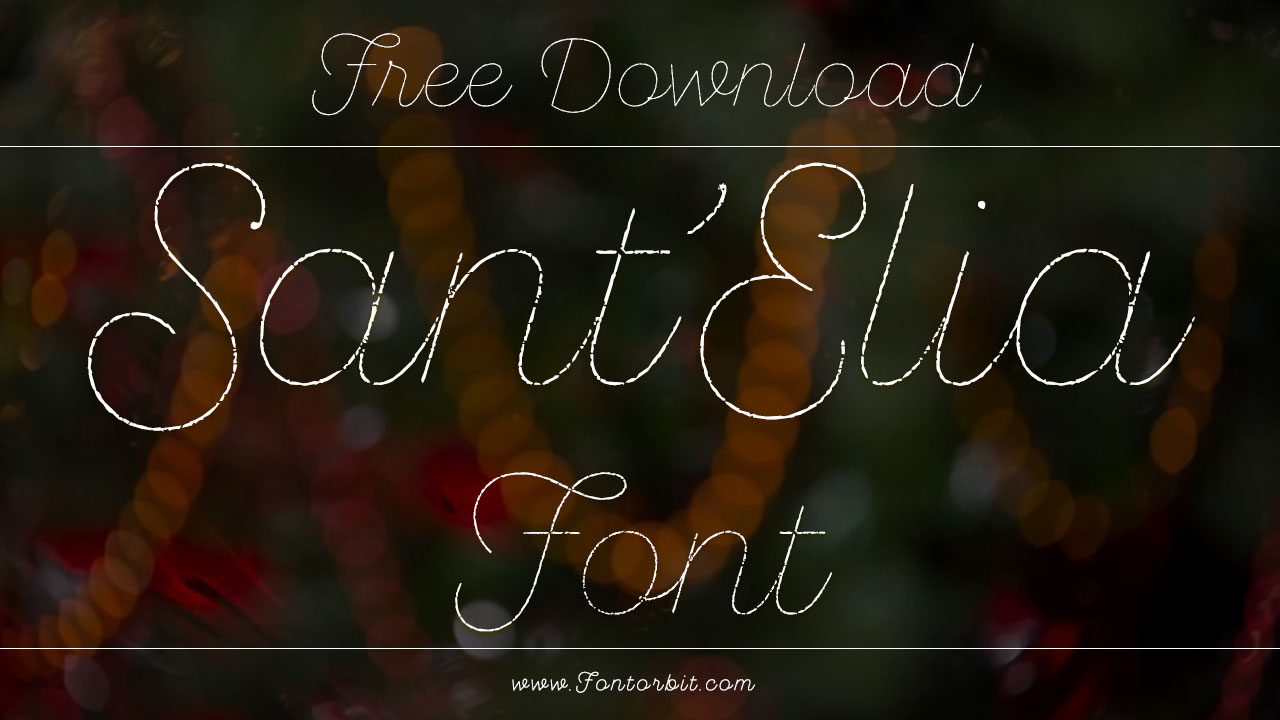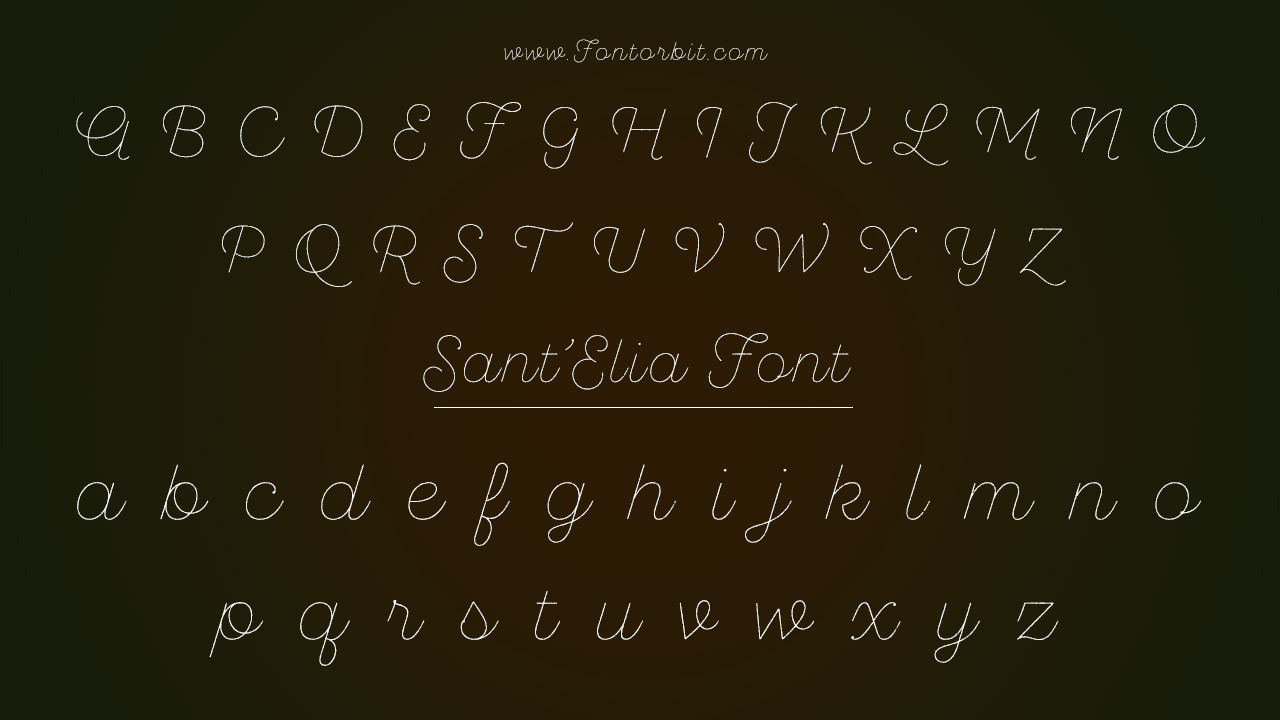
Sant’Elia Font is a robust modern type family designed by Ryan Martinson of Yellow Design Studio. First introduced as a versatile script font, it blends elegance with contemporary flair.
Released as both regular and rough versions, it has become a favorite among designers for its decorative fonts, handwritten font feel, and advanced typographic features.
- Sant’Elia is a recent font known for its modern fonts aesthetic.
- Offers stylistic alternates and ligatures for customization.
- Available in regular and rough versions for design flexibility.
- Supports a wide range of languages with extensive language support.
Sant’Elia Font Information
| Name | Sant’Elia Font |
|---|---|
| Style | Script Font |
| Designer | Ryan Martinson |
| Type | Handwritten Script & Brush Font |
Font Family Includes
- Sant’Elia Script Regular
- Sant’Elia Script Bold
- Sant’Elia Script Light Bold
- Sant’Elia Script ExLight
- Sant’Elia Script Black
- Sant’Elia Script Line Three
Where “Sant’Elia Font” Is In Use
Sant’Elia Script has become a popular font across industries due to its flexibility and extensive language support. Here are common applications:
- Logo Design: Perfect for creating modern, eye-catching brand logos.
- Product Packaging: Works beautifully on artisanal and premium packaging.
- Social Media Graphics: Ideal for Instagram posts, YouTube thumbnails, and stories.
- Website Headers: Enhances visual appeal and provides drama to main content.
- Printed Materials: Used for invitations, banners, and flyers due to its clarity and elegance.
- Email Signatures: Adds a stylish touch to professional communications.
- Literacy and Clarity: Great for educational materials, offering legibility and style.
Sant’Elia Font by Ryan Martinson is a perfect combination of modern and vintage design. With its brush font appeal and advanced typographic features, it is ideal for designers looking for customization in their projects. From logo design to product packaging, its versatility and language support make it a top choice among recent fonts.
Whether you’re designing for personal use or professional purposes, Sant’Elia Script delivers style, clarity, and verve to any project. Pair it with sans serif fonts or other decorative fonts to create unique and engaging designs.
1.What Type Of Font Is Sant’Elia Font?
It is a handwritten script font with both clean and rough styles.
2.Who Designed Sant’Elia Font?
It was designed by Ryan Martinson from Yellow Design Studio.
5.Does Sant’Elia Font Support Multiple Languages?
Yes, it offers extensive language support, making it versatile.
8.What Are Sant’Elia Font’s Key Features?
It offers ligatures, stylistic alternates, and clean or rough versions for customization.
9.Is Sant’Elia Font Suitable For Printing?
Yes, its clarity and elegance make it excellent for printing on invitations, flyers, and banners.
10.Can I Pair Sant’Elia Font With Sans Serif Fonts?
Absolutely! Pairing it with sans serif fonts enhances its handwritten aesthetic.